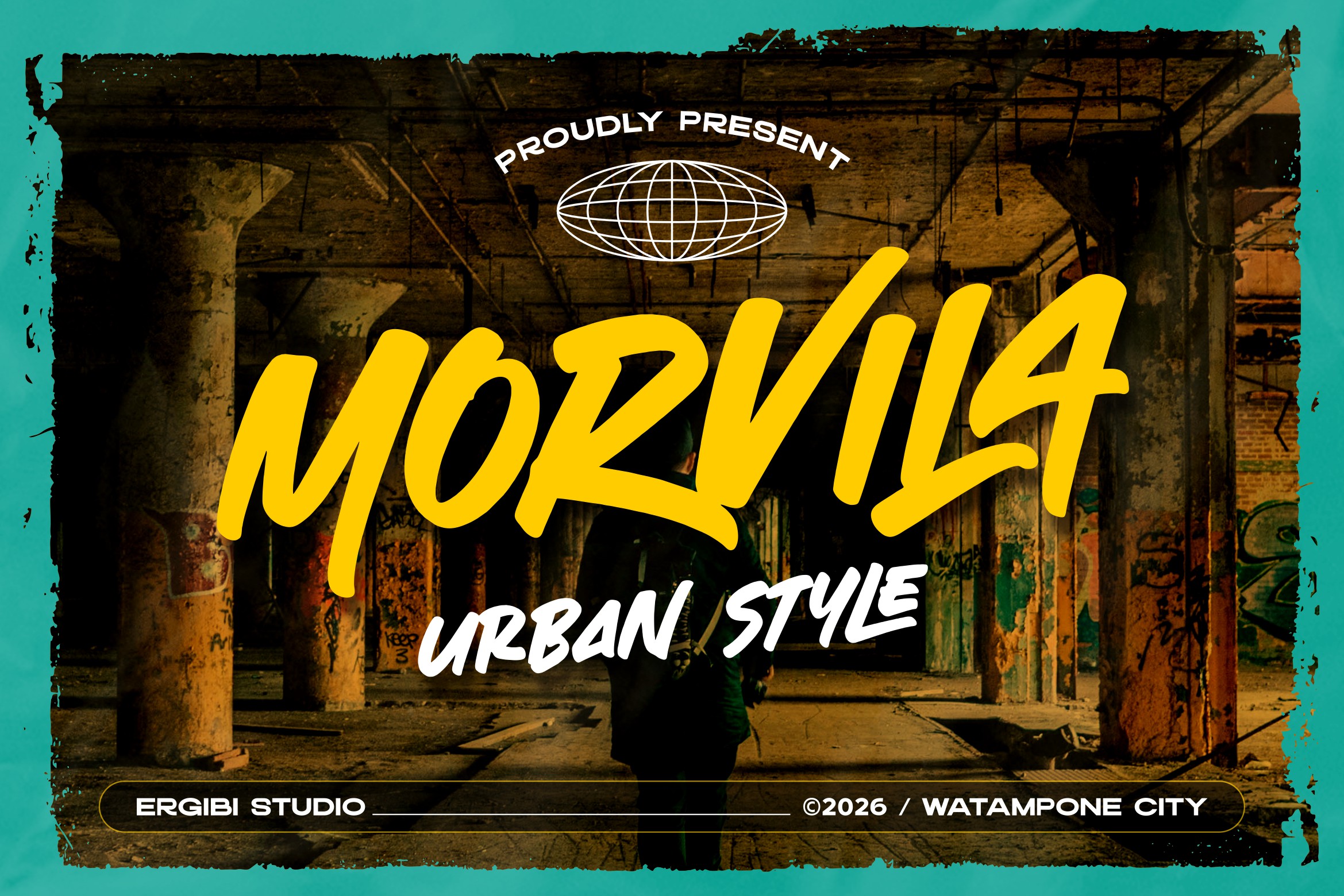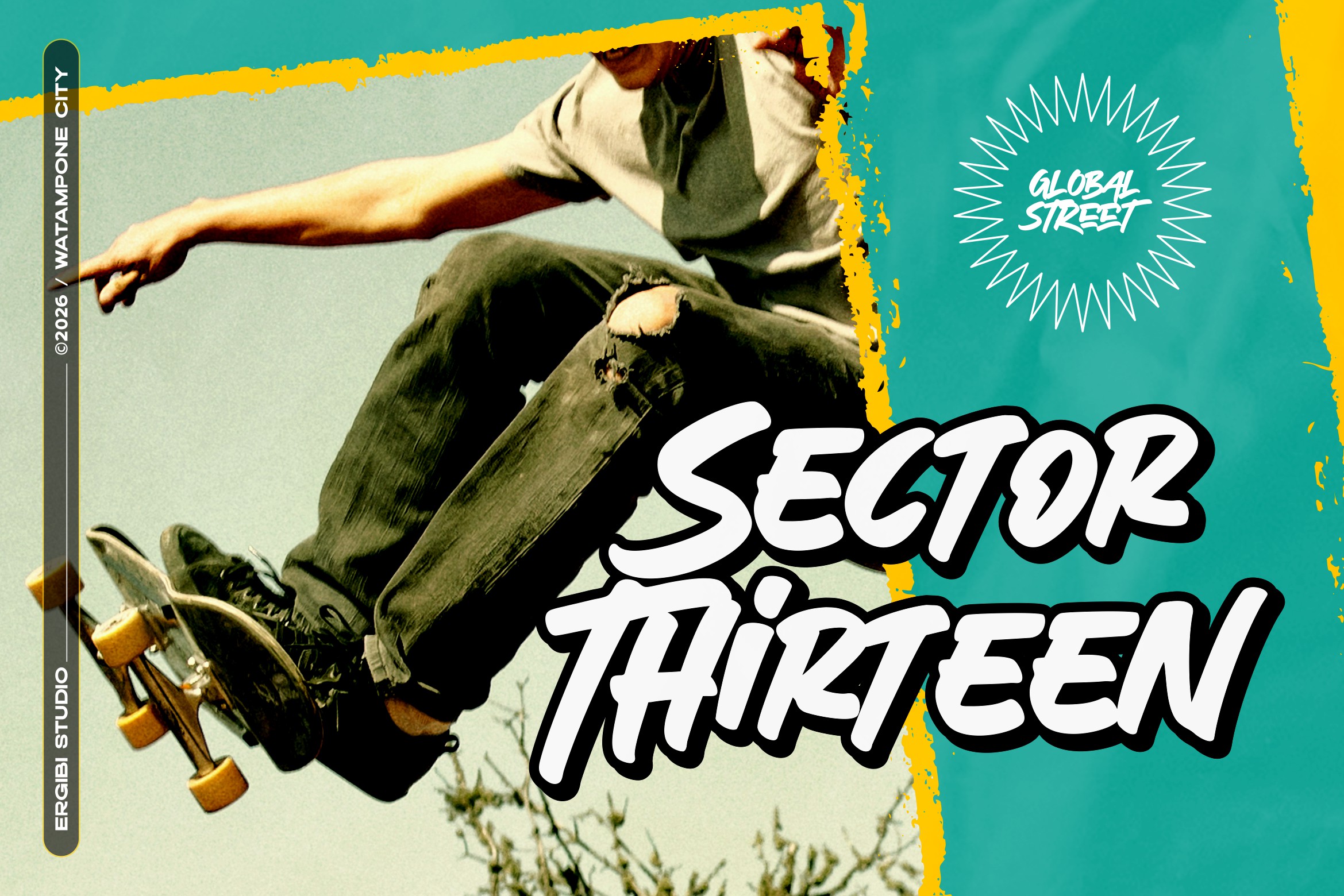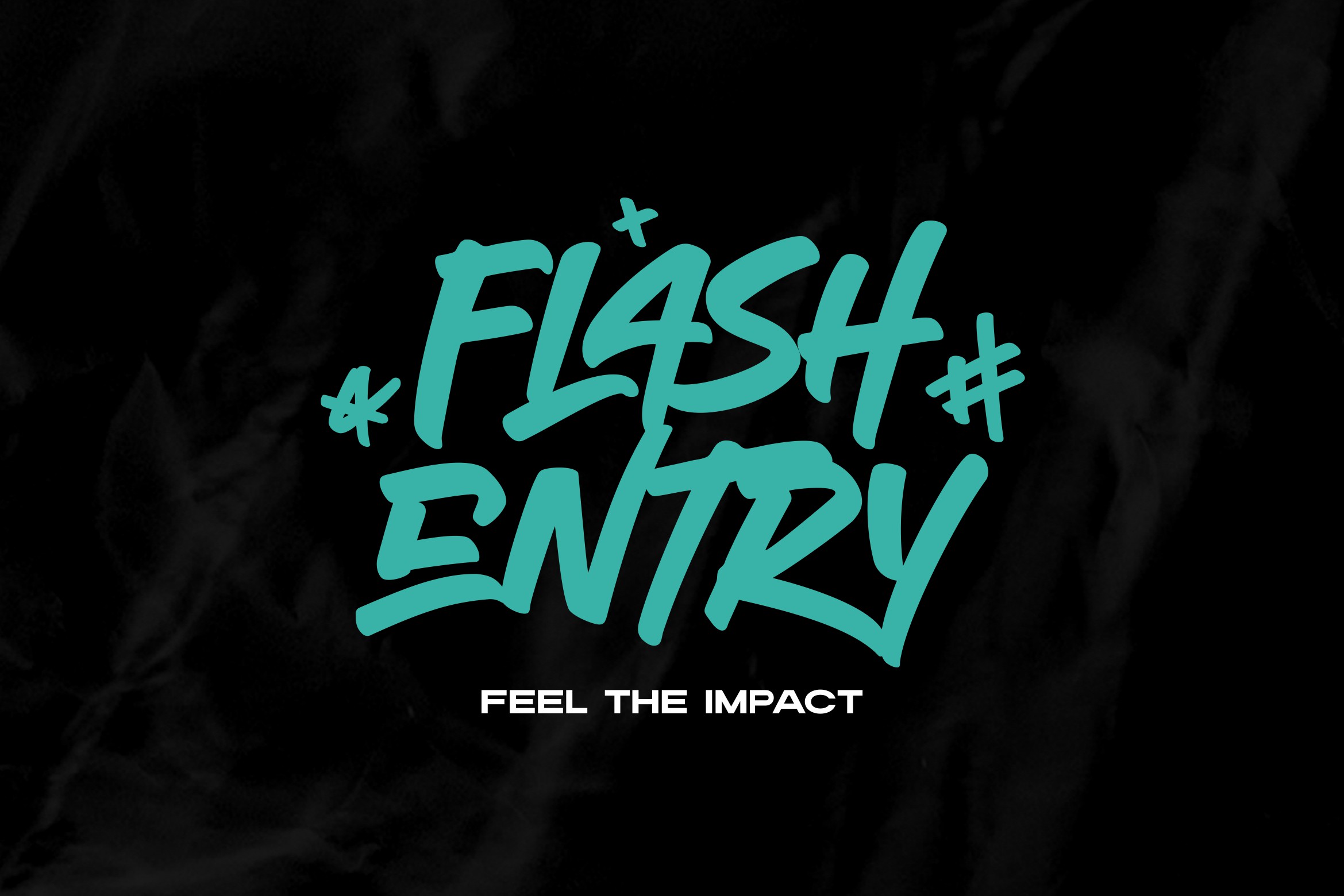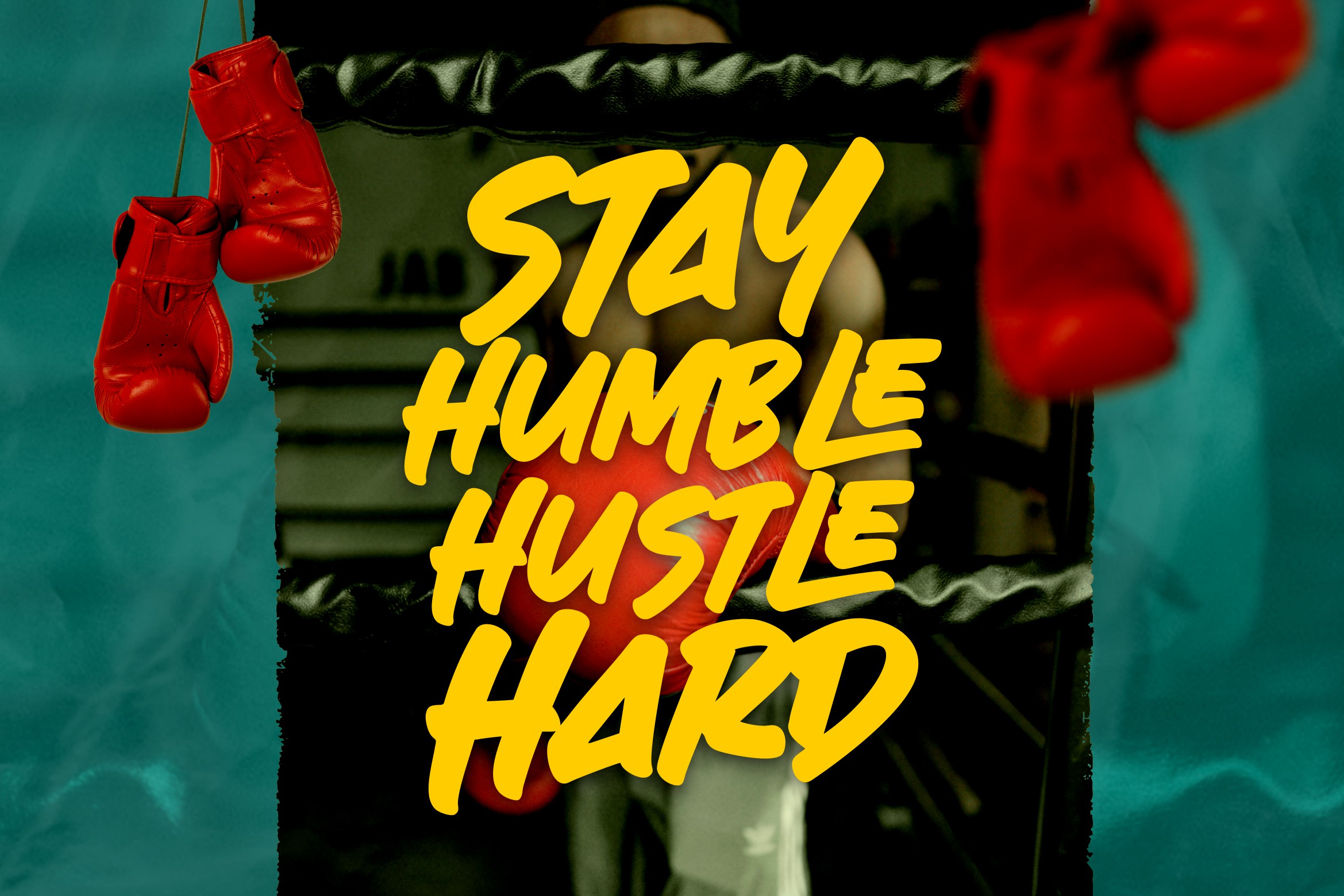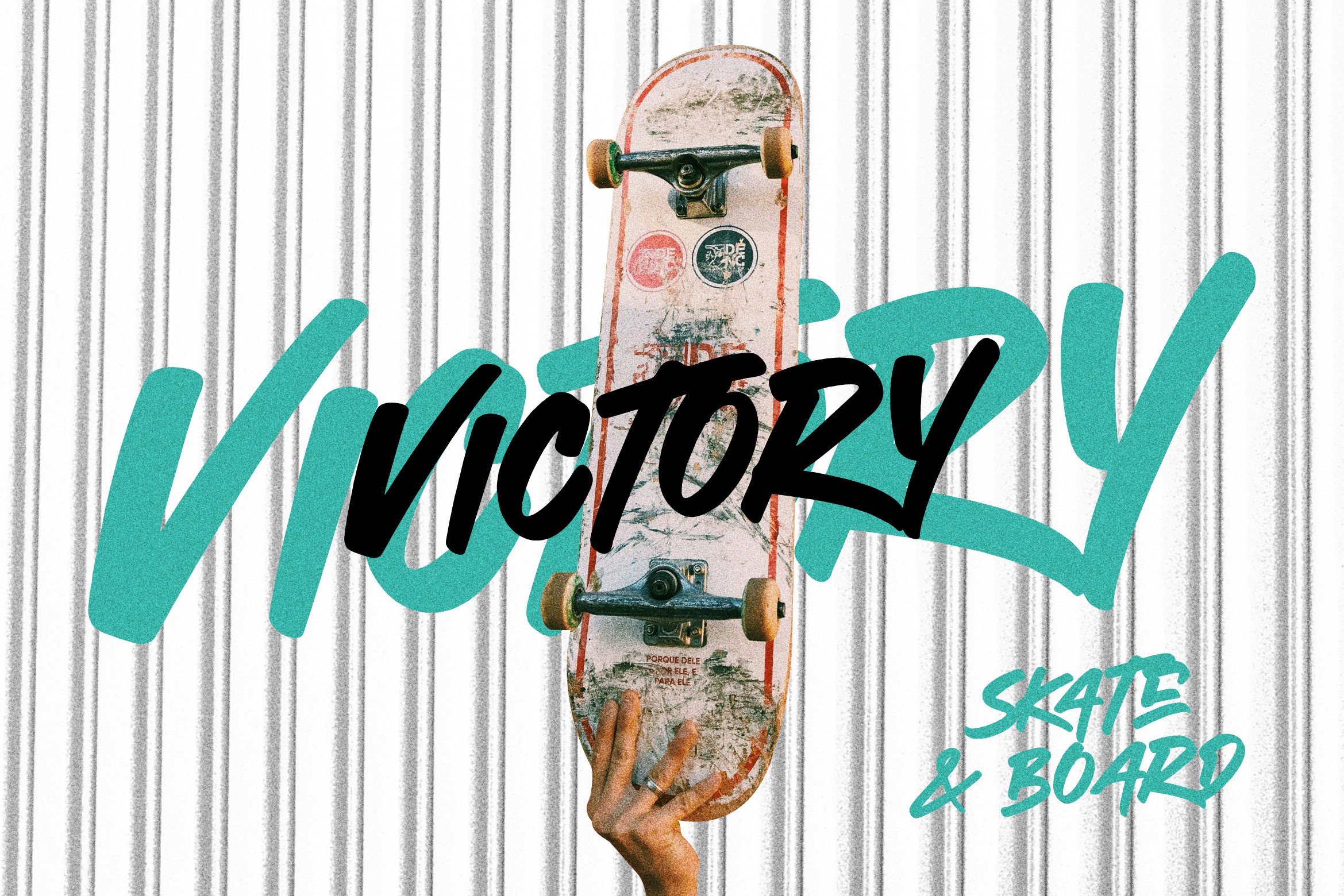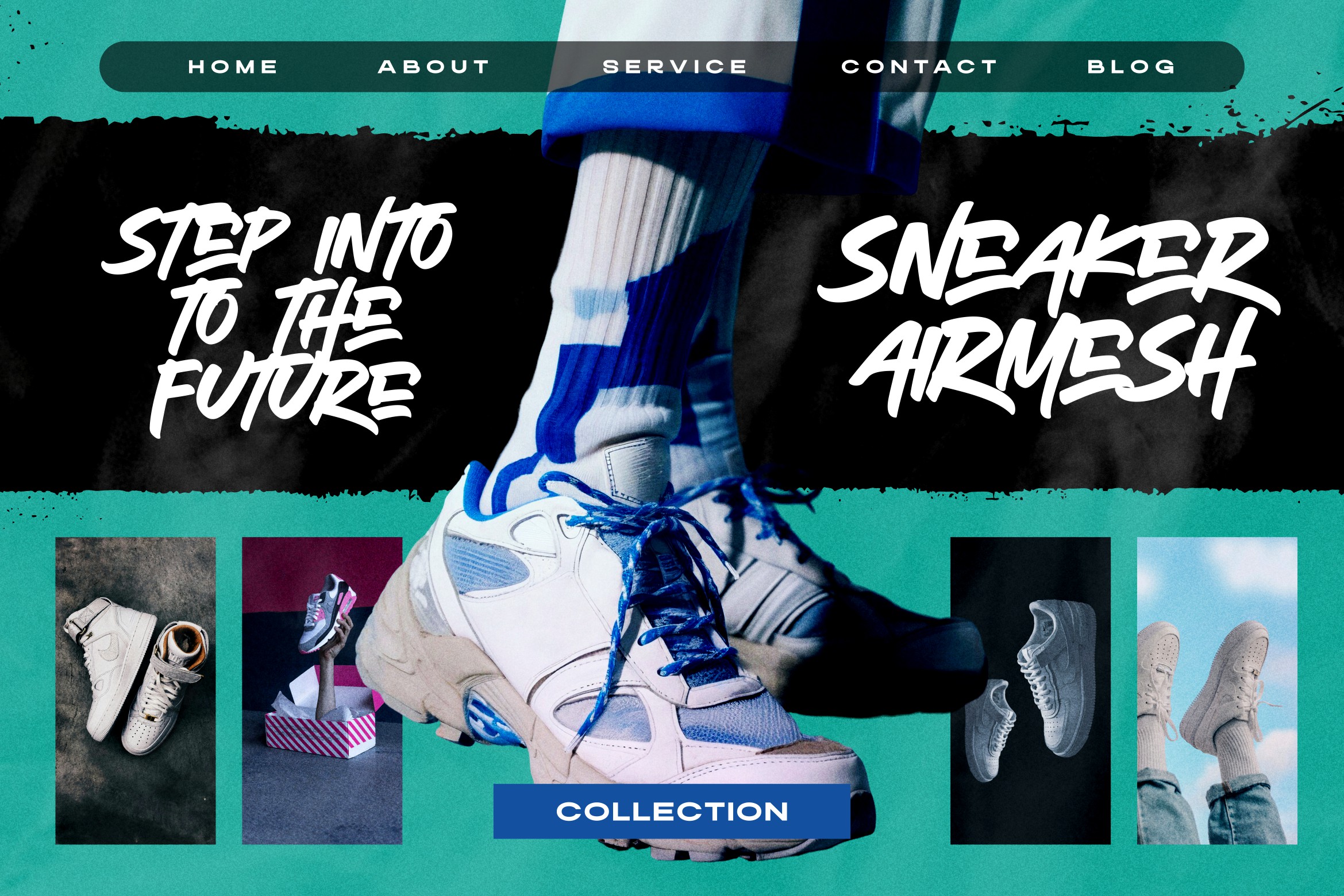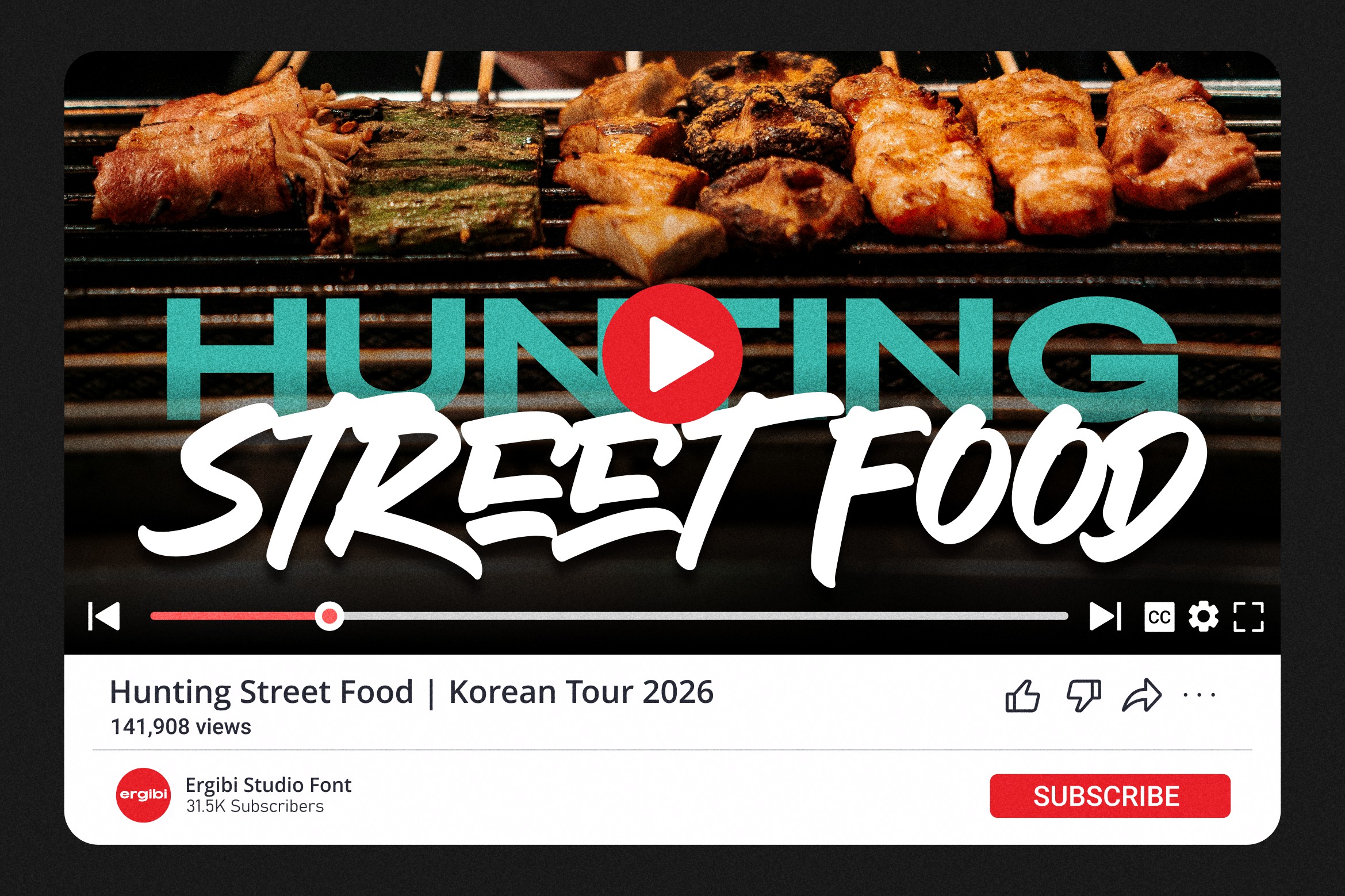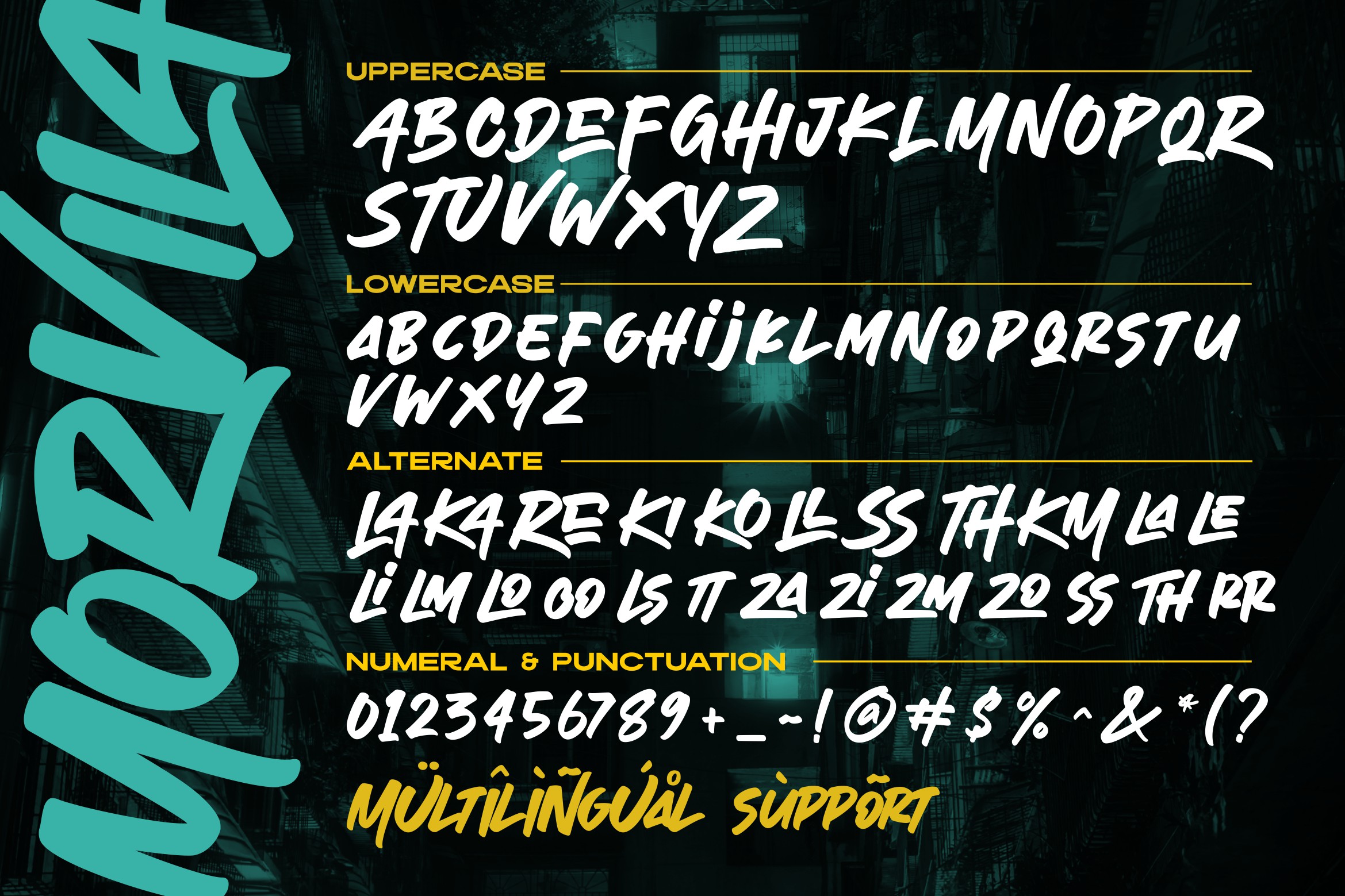
MORVILA is a bold yet smooth urban display typeface designed to deliver strong visual impact with a clean finish. Unlike rough brush or textured styles, MORVILA features solid, confident strokes with refined curves — creating a modern street aesthetic that feels powerful but polished.
Built for standout headlines and expressive branding, MORVILA blends urban attitude with smooth readability. It’s perfect for designers who want a street-inspired look without heavy texture or grunge effects.